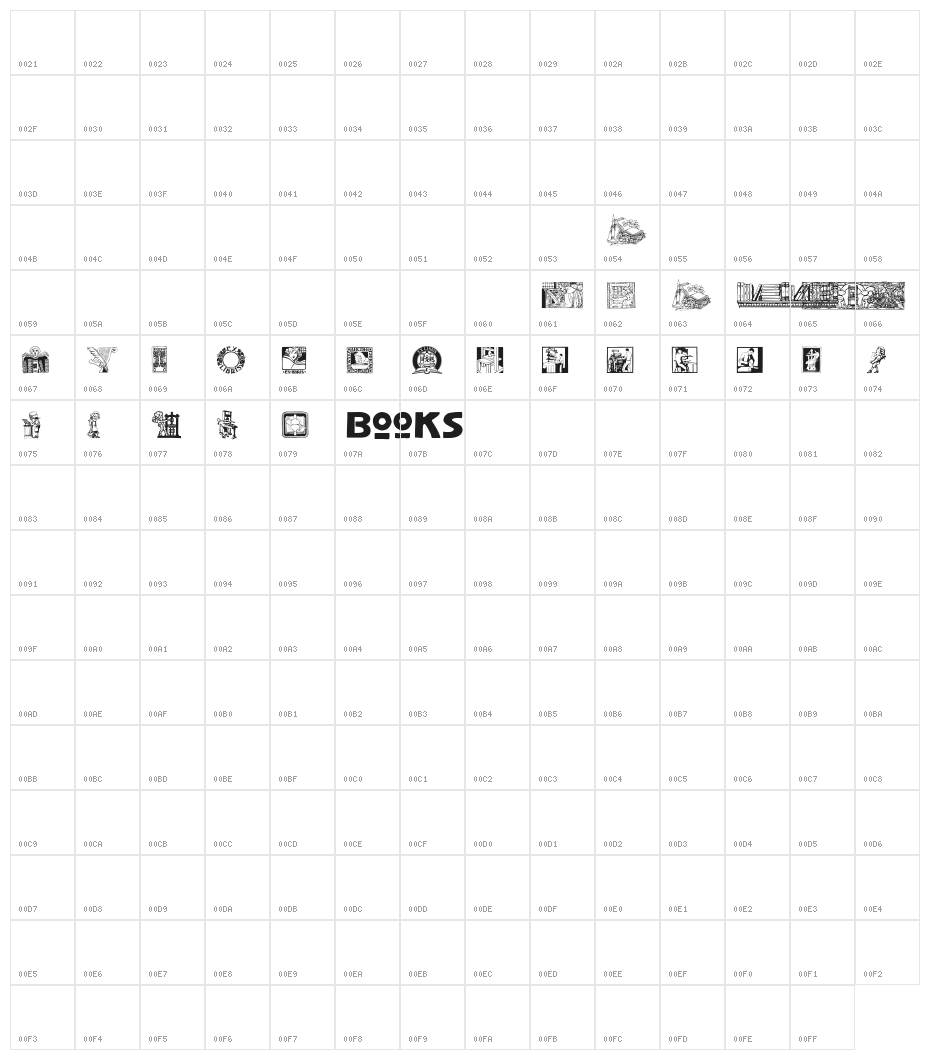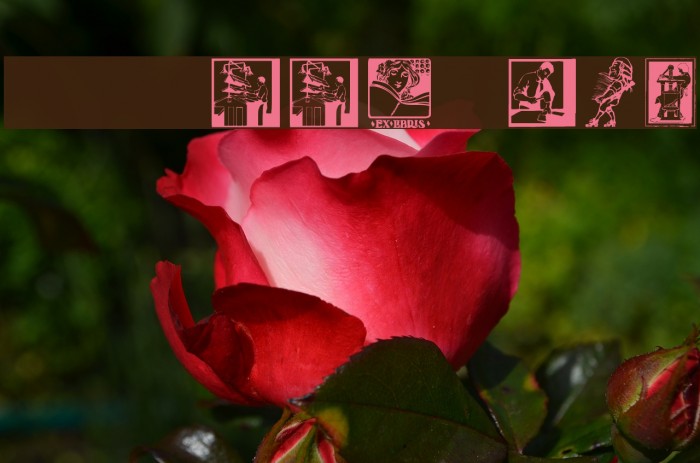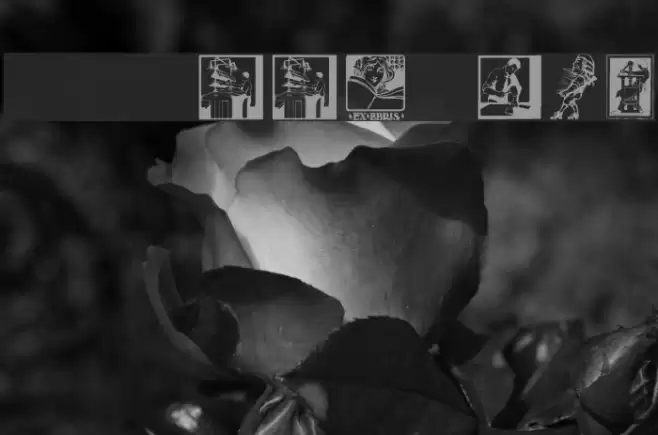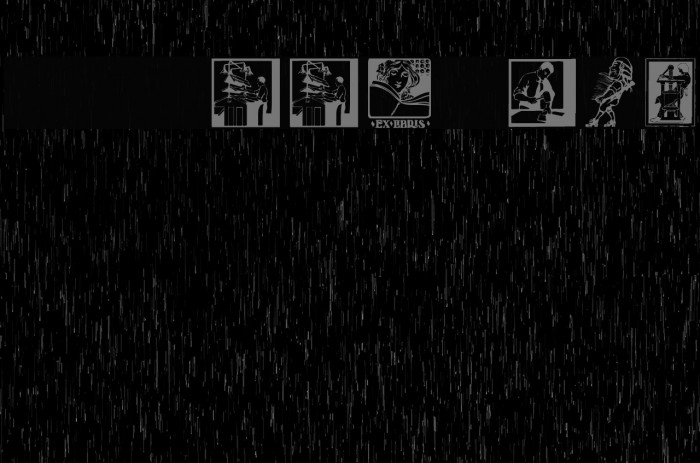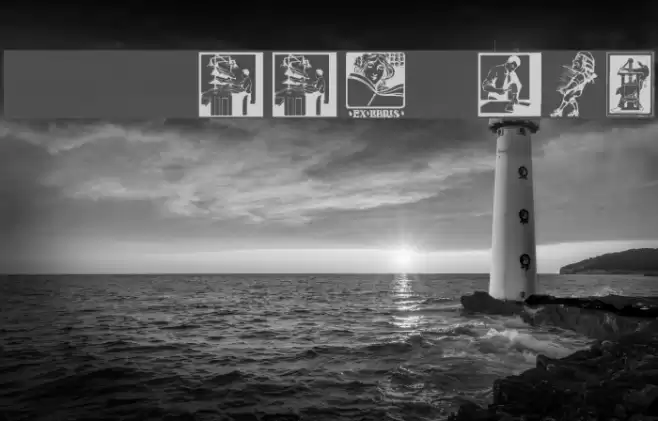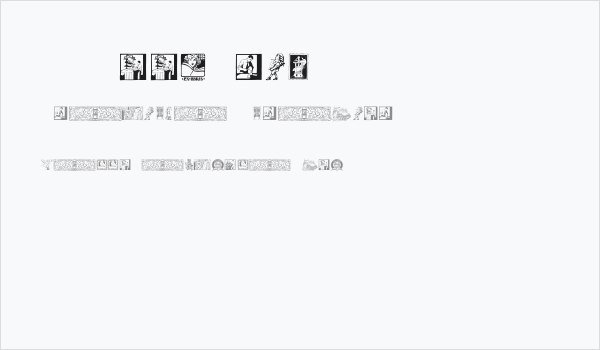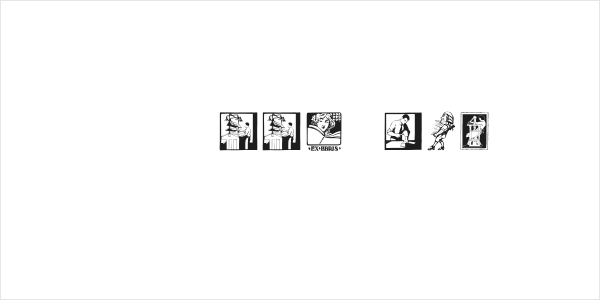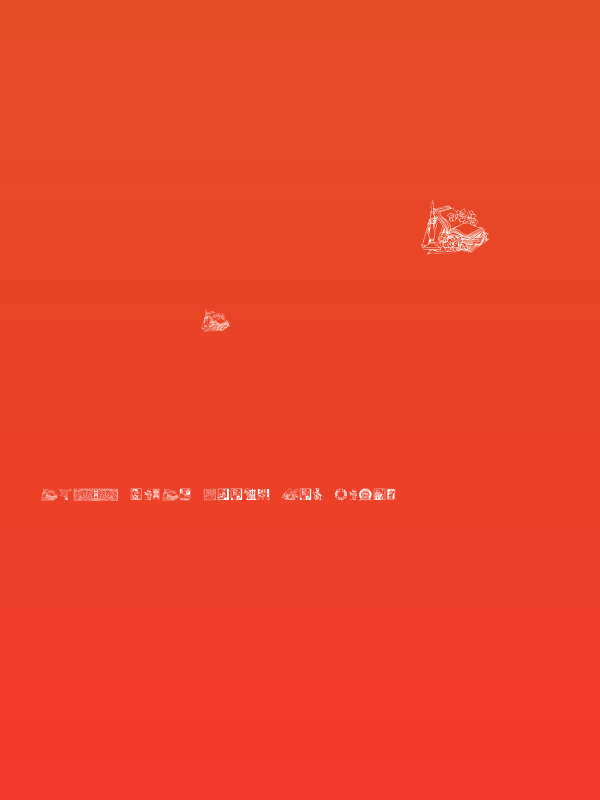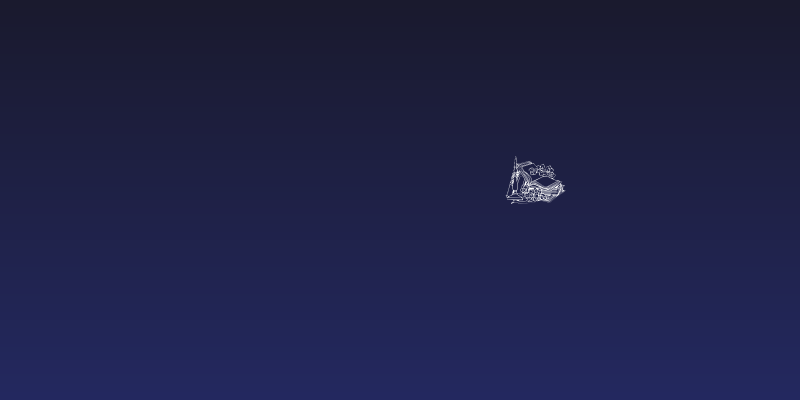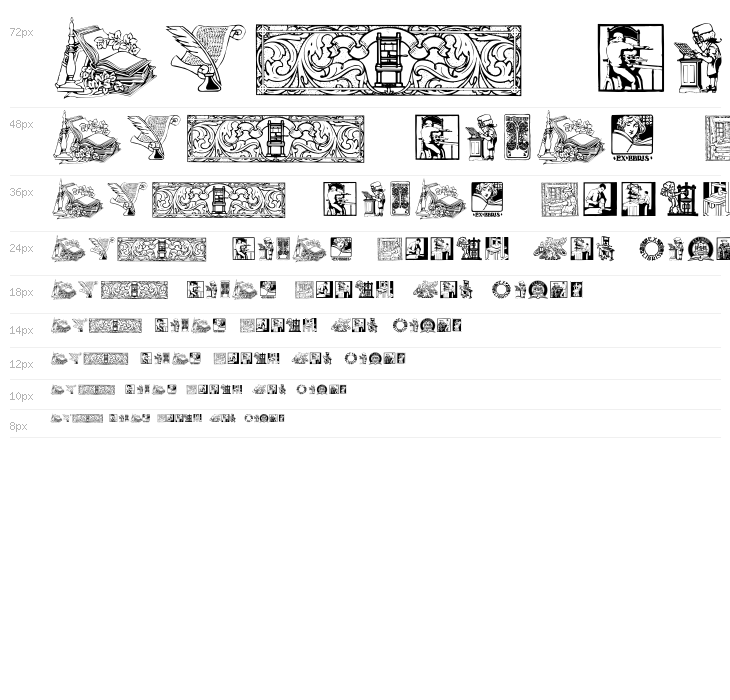
SLBookArts Font
SLBookArts Description
This font is a decorative collection of intricate illustrations and designs, each character representing a unique piece of art. The characters are not traditional letters or numbers but rather detailed images that depict scenes or objects related to books and literature. The style is reminiscent of vintage bookplates or engravings, with a high level of detail and craftsmanship. Each character is a standalone piece of art, making this font ideal for projects that require a touch of elegance and historical charm. The font is not suitable for body text but can be used effectively for decorative purposes.
| Use Case | Logos, Decorative elements |
| Proposed Projects | Ideal for book covers, literary event posters, or any project needing a vintage, artistic touch. |